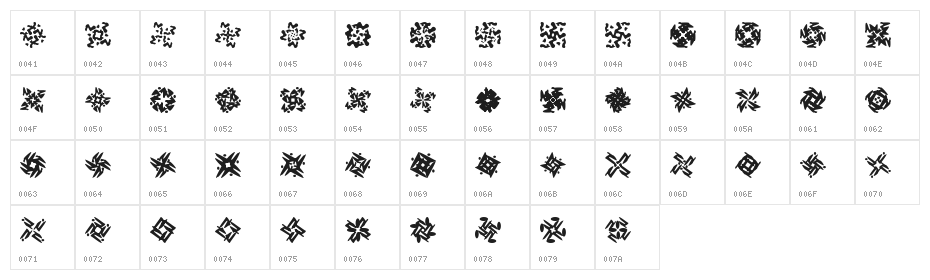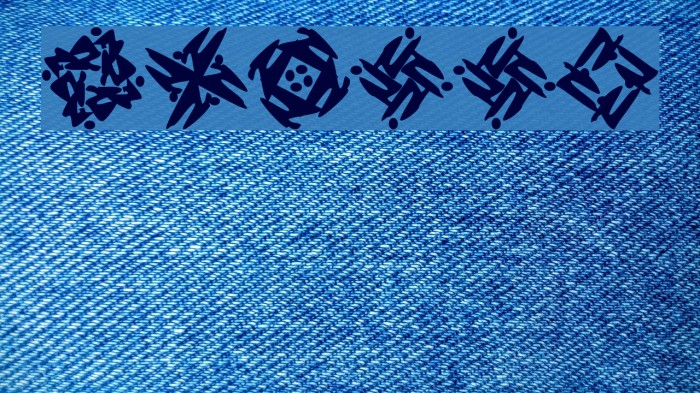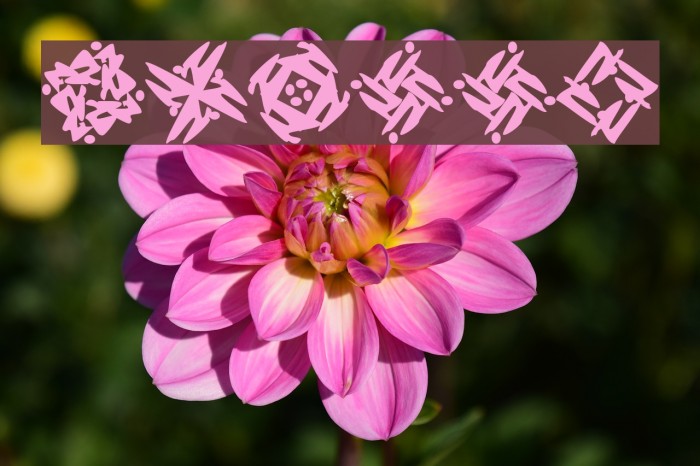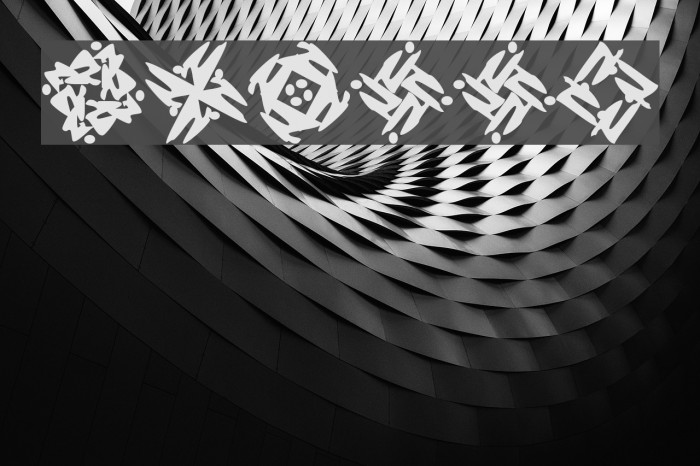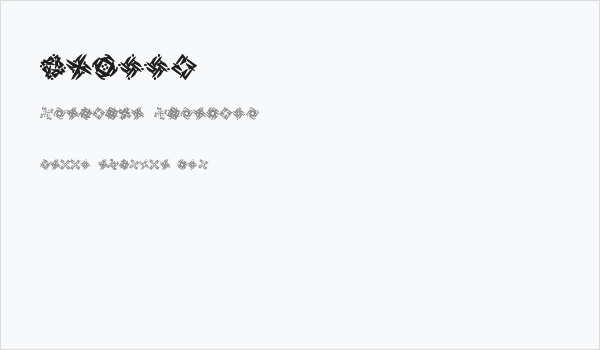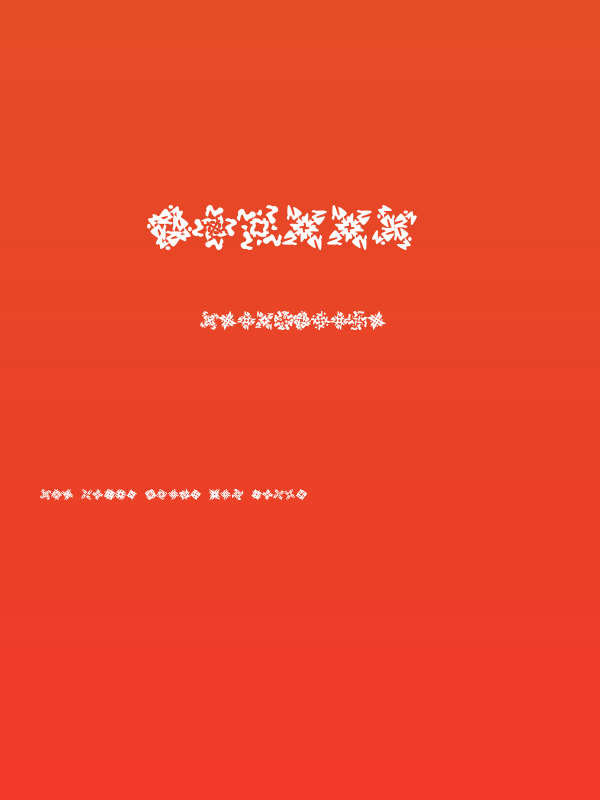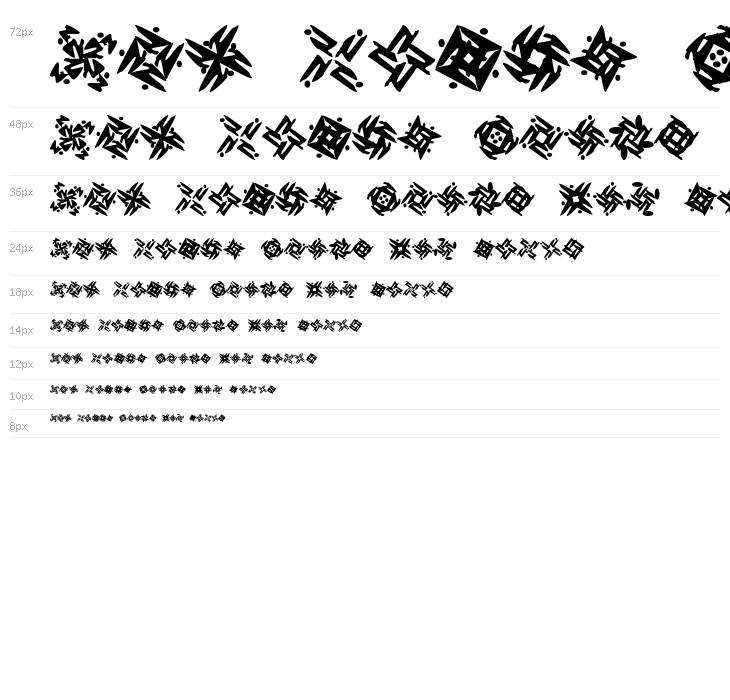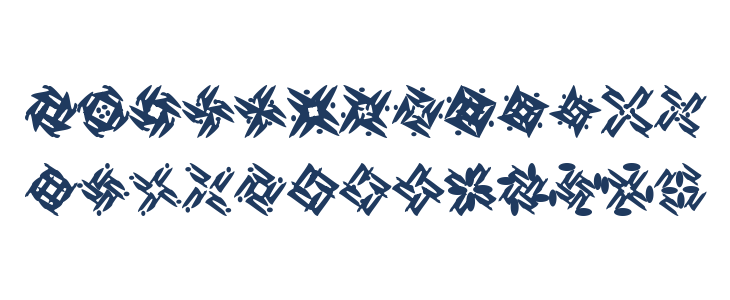
Reboot1 Font
Highly decorative and abstract font composed of intricate, geometric, and symmetrical shapes, making each character appear as a unique symbol or emblem rather than traditional letterforms.
Overall StyleDecorative, Abstract, Modern
Use CaseLogos, Headlines, Posters, Artistic projects
Proposed ProjectsPosters, album covers, experimental branding, digital art, event graphics, and decorative headings.